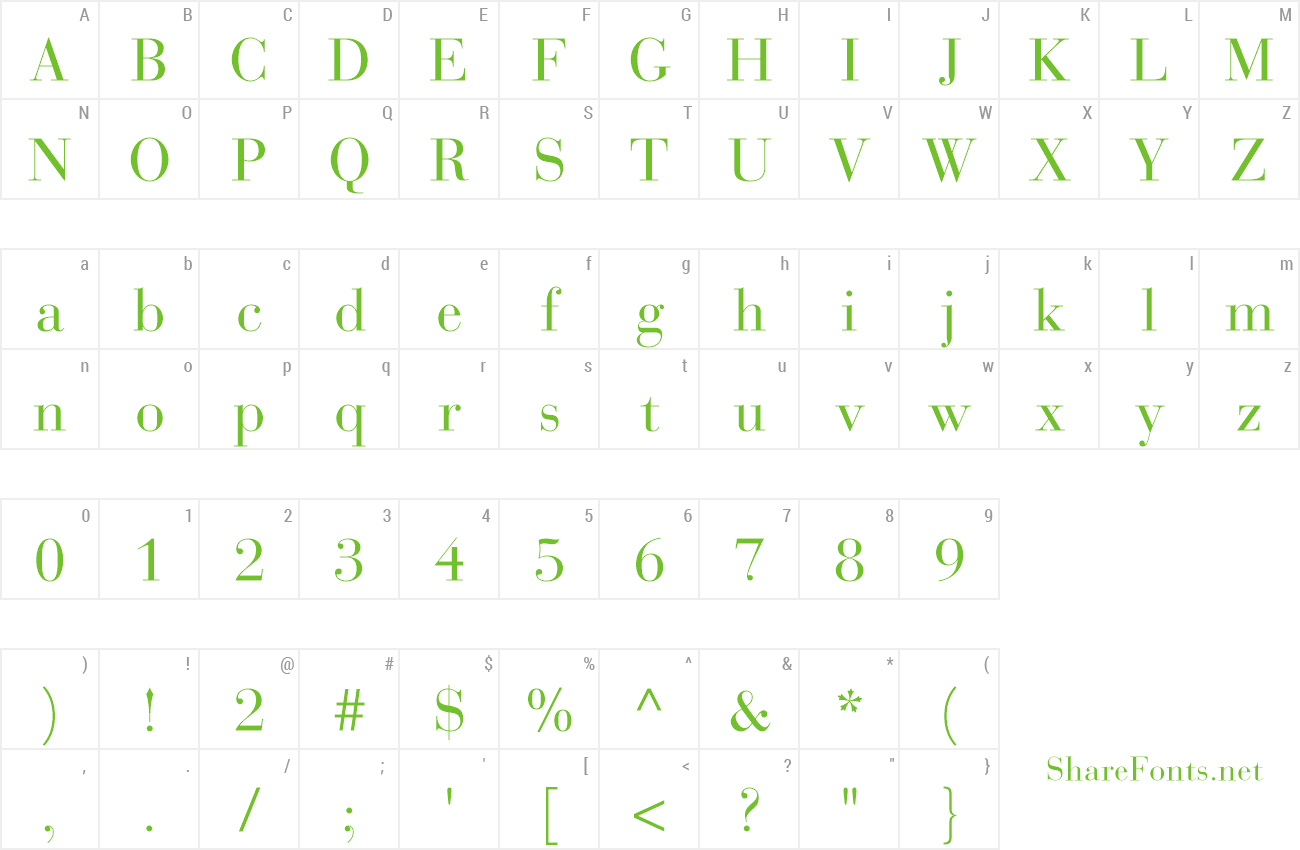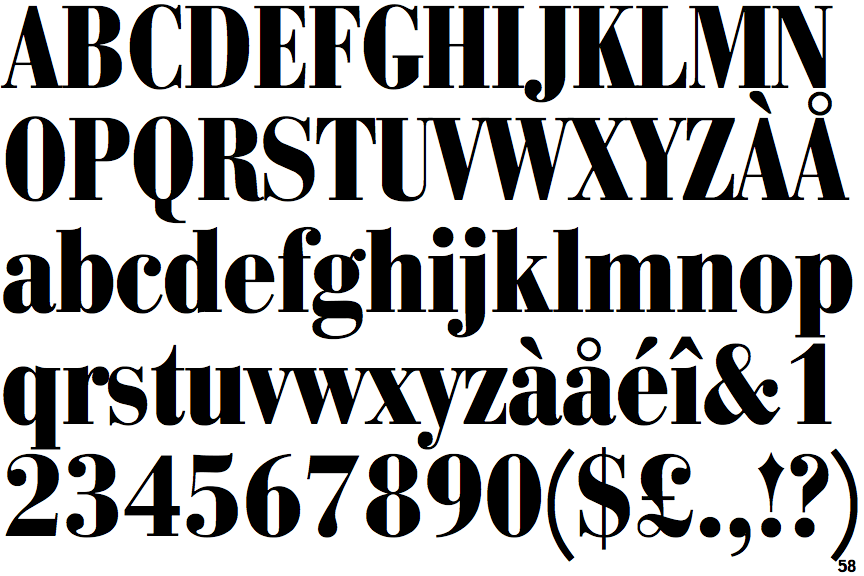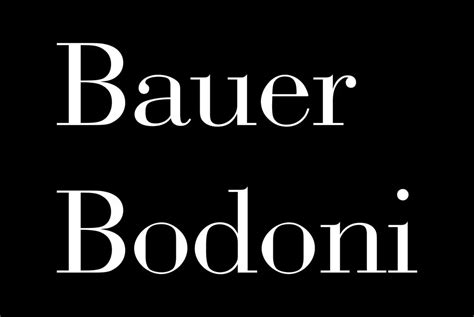
Bauer Bodoni Font
Bauer Bodoni Font - Elegant serif font with high contrast and thin serifs. Bauer bodoni ef font family was designed by giambattista bodoni, heinrich jost, bauersche gießerei and published by elsner+flake. He was a prolific type designer, a masterful engraver of. Discover the elegant allure of bauer bodoni, a refined typeface born in 1926, delicately bridging the gap between grace and.
He was a prolific type designer, a masterful engraver of. Elegant serif font with high contrast and thin serifs. Discover the elegant allure of bauer bodoni, a refined typeface born in 1926, delicately bridging the gap between grace and. Bauer bodoni ef font family was designed by giambattista bodoni, heinrich jost, bauersche gießerei and published by elsner+flake.
Discover the elegant allure of bauer bodoni, a refined typeface born in 1926, delicately bridging the gap between grace and. Bauer bodoni ef font family was designed by giambattista bodoni, heinrich jost, bauersche gießerei and published by elsner+flake. Elegant serif font with high contrast and thin serifs. He was a prolific type designer, a masterful engraver of.
Discover the elegant allure of bauer bodoni, a refined typeface born in 1926, delicately bridging the gap between grace and. Elegant serif font with high contrast and thin serifs. He was a prolific type designer, a masterful engraver of. Bauer bodoni ef font family was designed by giambattista bodoni, heinrich jost, bauersche gießerei and published by elsner+flake.
Discover the elegant allure of bauer bodoni, a refined typeface born in 1926, delicately bridging the gap between grace and. He was a prolific type designer, a masterful engraver of. Bauer bodoni ef font family was designed by giambattista bodoni, heinrich jost, bauersche gießerei and published by elsner+flake. Elegant serif font with high contrast and thin serifs.
He was a prolific type designer, a masterful engraver of. Discover the elegant allure of bauer bodoni, a refined typeface born in 1926, delicately bridging the gap between grace and. Bauer bodoni ef font family was designed by giambattista bodoni, heinrich jost, bauersche gießerei and published by elsner+flake. Elegant serif font with high contrast and thin serifs.
Elegant serif font with high contrast and thin serifs. Discover the elegant allure of bauer bodoni, a refined typeface born in 1926, delicately bridging the gap between grace and. Bauer bodoni ef font family was designed by giambattista bodoni, heinrich jost, bauersche gießerei and published by elsner+flake. He was a prolific type designer, a masterful engraver of.
Discover the elegant allure of bauer bodoni, a refined typeface born in 1926, delicately bridging the gap between grace and. He was a prolific type designer, a masterful engraver of. Elegant serif font with high contrast and thin serifs. Bauer bodoni ef font family was designed by giambattista bodoni, heinrich jost, bauersche gießerei and published by elsner+flake.
Discover the elegant allure of bauer bodoni, a refined typeface born in 1926, delicately bridging the gap between grace and. He was a prolific type designer, a masterful engraver of. Bauer bodoni ef font family was designed by giambattista bodoni, heinrich jost, bauersche gießerei and published by elsner+flake. Elegant serif font with high contrast and thin serifs.
Download Free Font Bauer Bodoni Std 1
Discover the elegant allure of bauer bodoni, a refined typeface born in 1926, delicately bridging the gap between grace and. Elegant serif font with high contrast and thin serifs. He was a prolific type designer, a masterful engraver of. Bauer bodoni ef font family was designed by giambattista bodoni, heinrich jost, bauersche gießerei and published by elsner+flake.
Identifont Bauer Bodoni Black Condensed
He was a prolific type designer, a masterful engraver of. Elegant serif font with high contrast and thin serifs. Bauer bodoni ef font family was designed by giambattista bodoni, heinrich jost, bauersche gießerei and published by elsner+flake. Discover the elegant allure of bauer bodoni, a refined typeface born in 1926, delicately bridging the gap between grace and.
Bauer Bodoni Font
He was a prolific type designer, a masterful engraver of. Bauer bodoni ef font family was designed by giambattista bodoni, heinrich jost, bauersche gießerei and published by elsner+flake. Discover the elegant allure of bauer bodoni, a refined typeface born in 1926, delicately bridging the gap between grace and. Elegant serif font with high contrast and thin serifs.
Bauer Bodoni DAYLIGHT FONTS
He was a prolific type designer, a masterful engraver of. Elegant serif font with high contrast and thin serifs. Discover the elegant allure of bauer bodoni, a refined typeface born in 1926, delicately bridging the gap between grace and. Bauer bodoni ef font family was designed by giambattista bodoni, heinrich jost, bauersche gießerei and published by elsner+flake.
Elegant Serif Font With High Contrast And Thin Serifs.
Bauer bodoni ef font family was designed by giambattista bodoni, heinrich jost, bauersche gießerei and published by elsner+flake. He was a prolific type designer, a masterful engraver of. Discover the elegant allure of bauer bodoni, a refined typeface born in 1926, delicately bridging the gap between grace and.